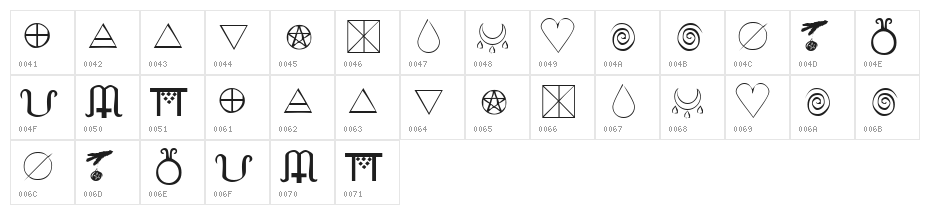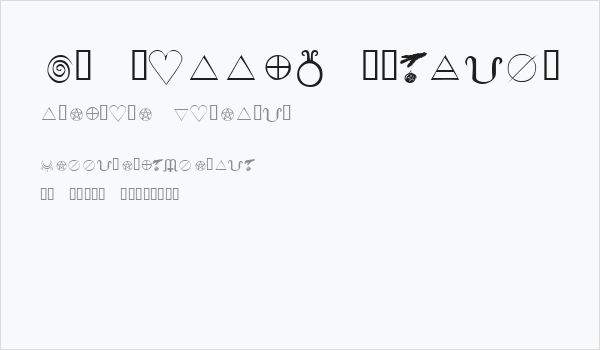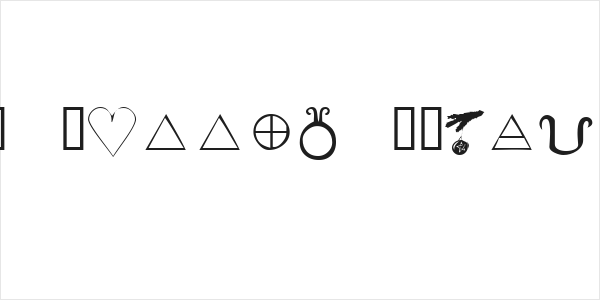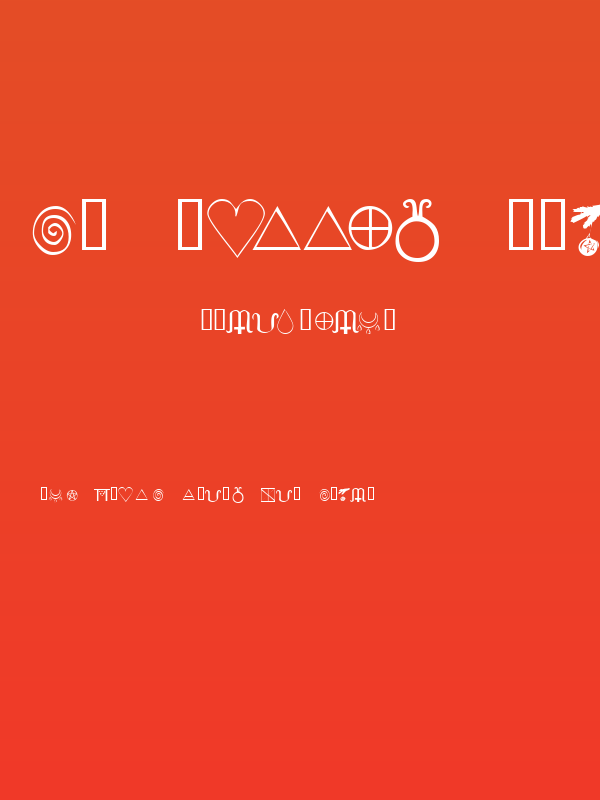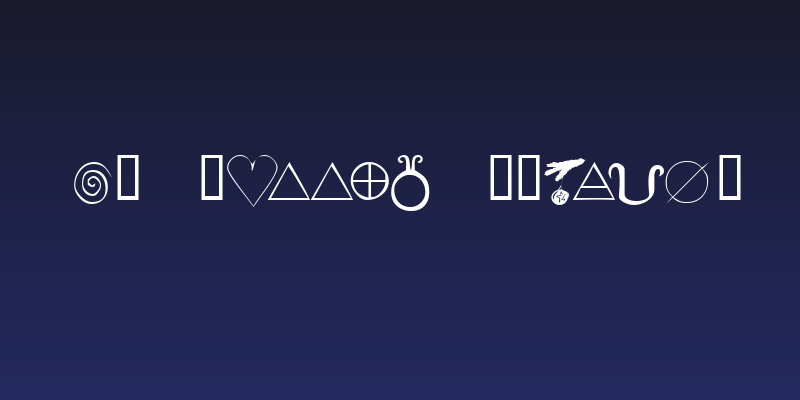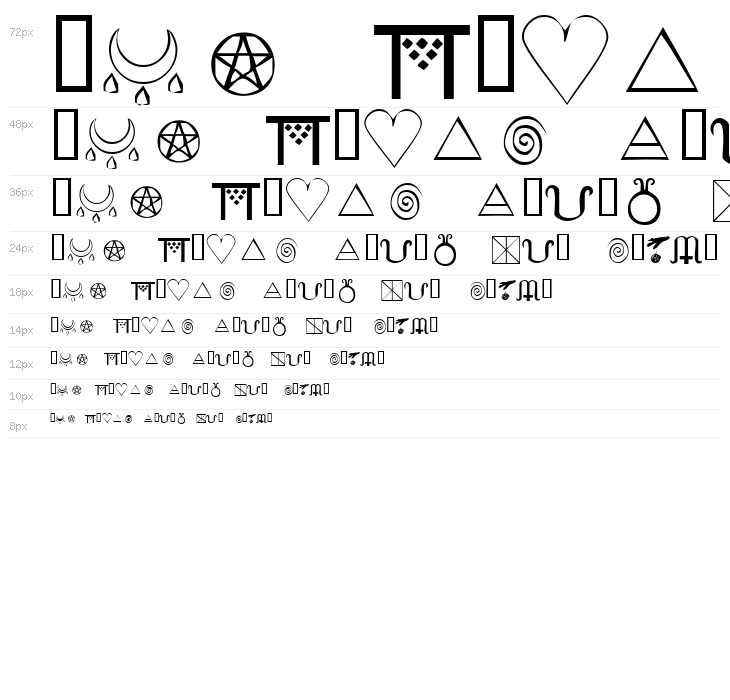
KR Wiccan Symbols Font
| Stile generale | Mystical, Esoteric, Decorative |
| Caso d'uso | Decorative elements, Thematic designs |
| Progetti proposti | Ideal for spiritual or mystical-themed projects, such as book covers, posters, or event invitations related to Wiccan or esoteric themes. |